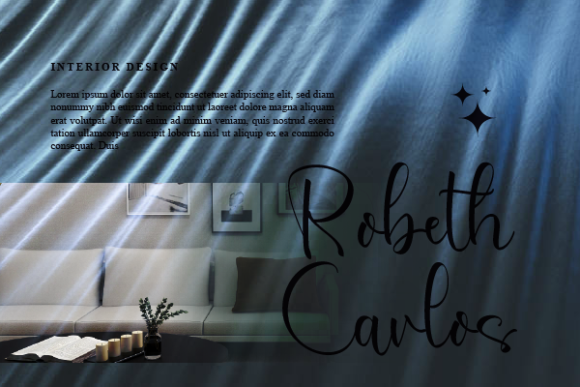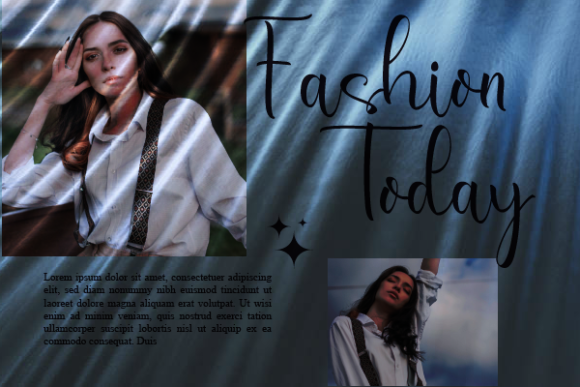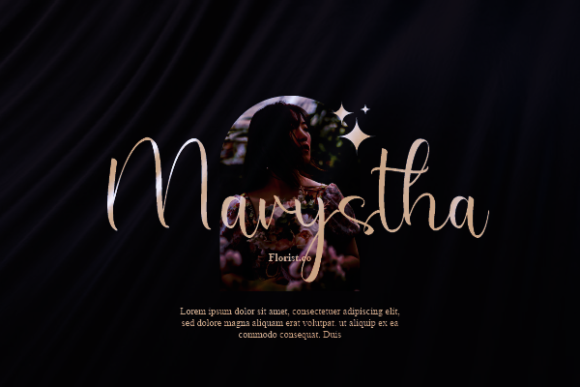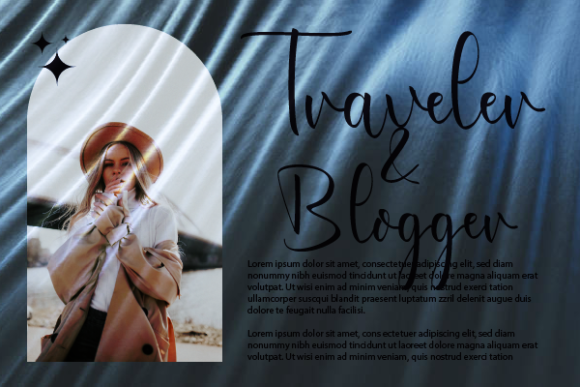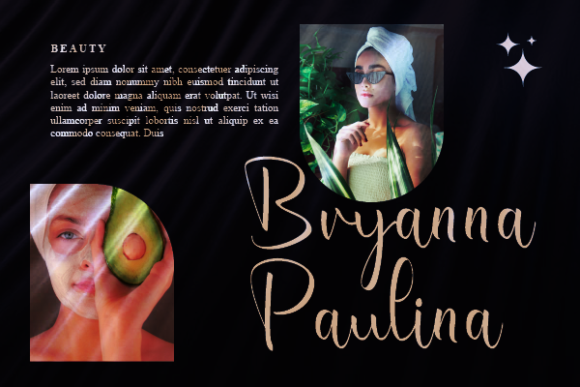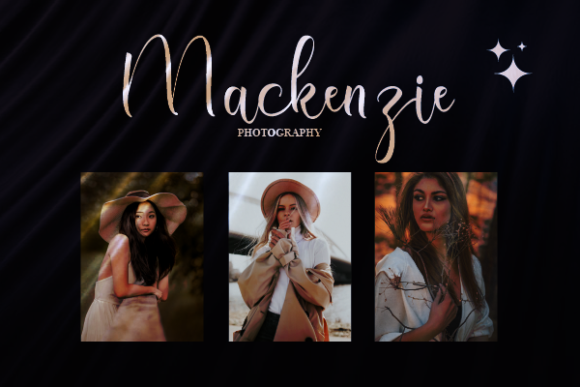
Cameron Bernadet Font: Elevate Your Designs with Elegance and Sophistication
In the world of typography, fonts play a crucial role in conveying the tone and personality of a brand. For designers and crafters seeking a delicate and fashionable script font, Cameron Bernadet is an exceptional choice. This beautiful font is perfect for a wide range of branding projects, including logos, t-shirt printing, creative products, and more. With its elegant and sophisticated design, Cameron Bernadet is sure to make your designs stand out in various contexts.
The Characteristics of Cameron Bernadet Font
Cameron Bernadet is a script font that exudes refinement and luxury. Its delicate strokes and flowing curves create a sense of movement and fluidity, making it ideal for designs that require a touch of elegance. The font’s sophisticated design ensures that it can be used in a variety of applications, from high-end branding to creative projects.
Perfect for Branding Projects
When it comes to branding, a font can make or break the identity of a company. Cameron Bernadet is an excellent choice for logos, business cards, and other marketing materials. Its unique and stylish design will help your brand stand out from the competition and leave a lasting impression on your target audience. Whether you’re a small business owner or a designer working with clients, Cameron Bernadet is a versatile font that can adapt to various branding needs.
T-Shirt Printing and Creative Products
Cameron Bernadet is not only suitable for digital designs but also perfect for print projects. For t-shirt printing, this font can add a touch of sophistication and style to your designs. Additionally, it can be used for creating unique and eye-catching designs for creative products such as mugs, tote bags, and phone cases. The font’s clarity and legibility ensure that your designs will look great even when printed in various colors and on different materials.
Why Choose Cameron Bernadet Font?
So, what makes Cameron Bernadet an excellent choice for designers and crafters? Here are a few reasons:
• Elegant and sophisticated design: Cameron Bernadet’s delicate strokes and flowing curves create a sense of luxury and refinement.
• Versatile: This font can be used in various contexts, from branding and advertising to creative projects and print designs.
• Easy to read: Despite its delicate design, Cameron Bernadet is clear and legible, making it perfect for body text and headlines.
• Unique and stylish: This font will help your designs stand out from the crowd and leave a lasting impression on your audience.
Tips for Using Cameron Bernadet Font
To get the most out of Cameron Bernadet, here are some tips for using this beautiful font:
• Pair it with a sans-serif font: Combining Cameron Bernadet with a clean sans-serif font can create a striking contrast and add visual interest to your designs.
• Experiment with colors: This font looks great in various colors, from metallic and pastel shades to bold and bright hues.
• Use it for headlines and titles: Cameron Bernadet’s elegant design makes it perfect for headlines and titles, but it can also be used for body text and descriptions.
Cameron Bernadet is a stunning script font that can elevate your designs with elegance and sophistication. Its delicate strokes, flowing curves, and refined design make it perfect for branding projects, t-shirt printing, creative products, and more. With its versatility, clarity, and unique style, Cameron Bernadet is an excellent choice for designers and crafters seeking a high-quality font for their projects. Whether you’re working on a logo, t-shirt design, or creative product, this font is sure to make your designs stand out and leave a lasting impression on your audience.